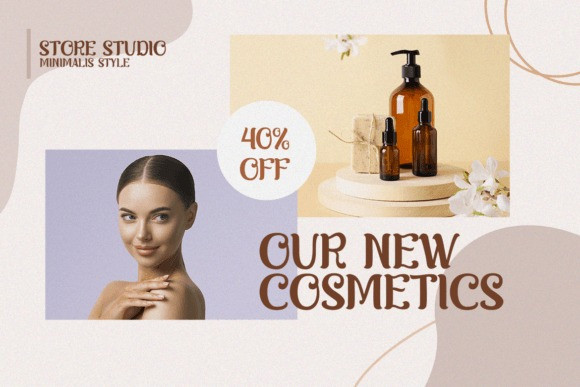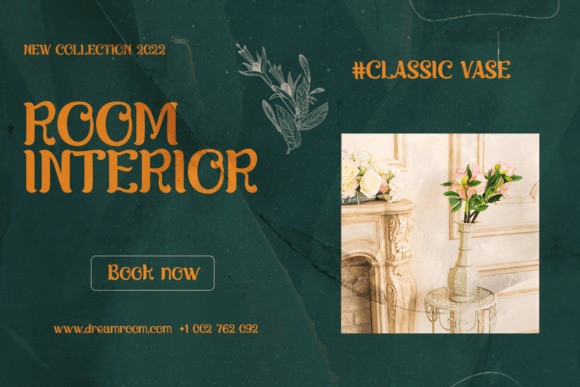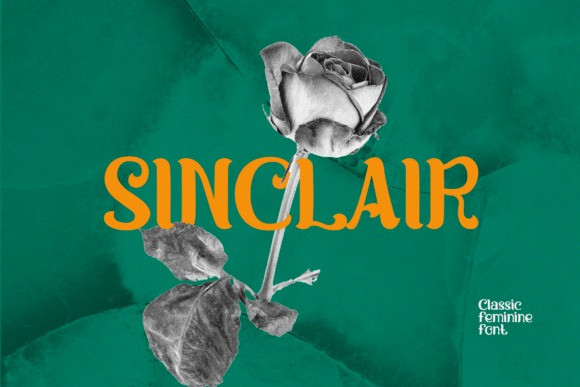
Sinclair Display Font
Sinclair Display Font – Classic Feminine Font. An elegant girly vibe serif font that emphasizes the flamboyant style in it.
Suit perfectly for mature and elegant themes books market, feminine posters, stationary, school supplies font, youtube covers, youtube thumbnails, social media page covers, and so on.